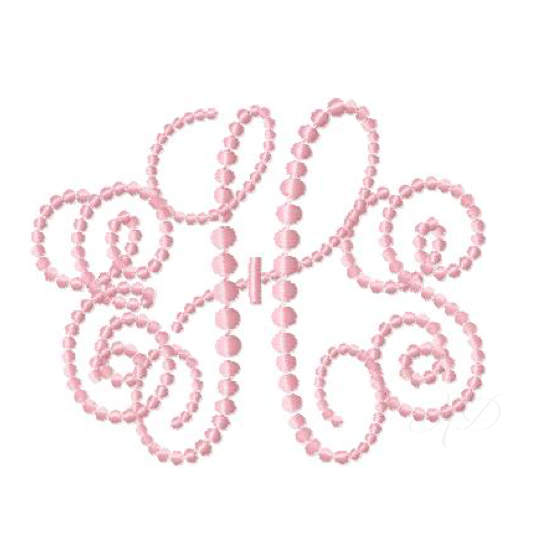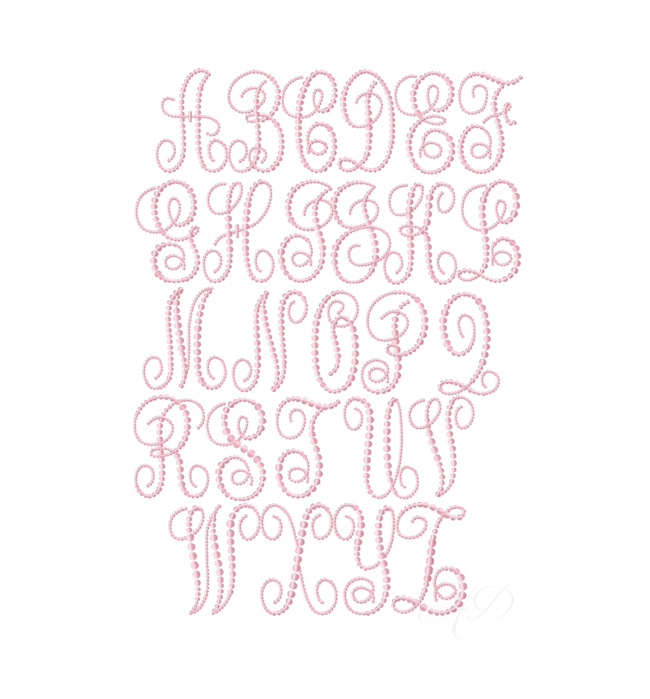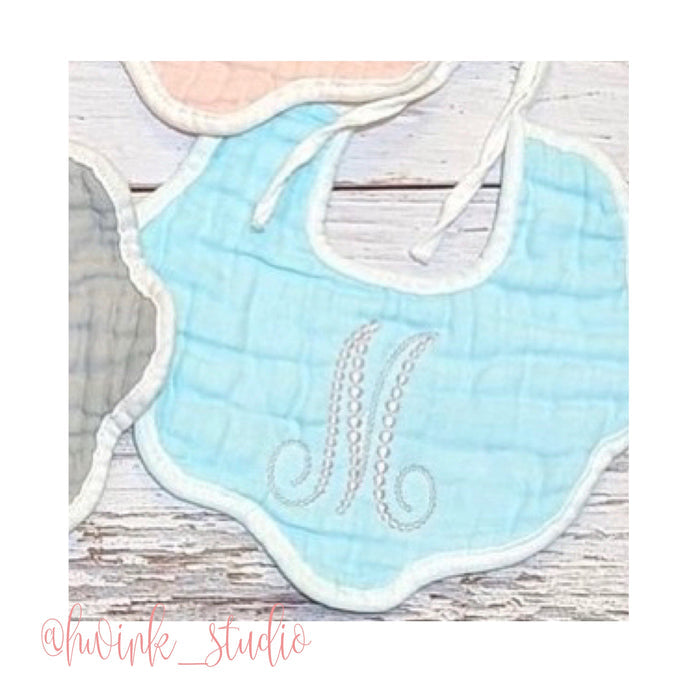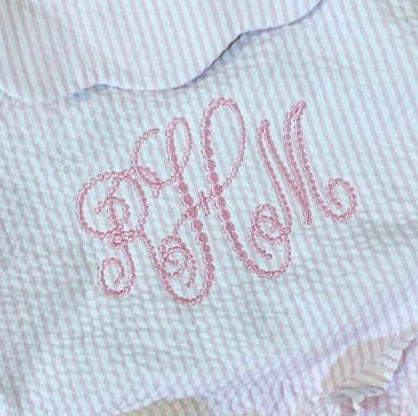
Classic Dot Monogram Embroidery Font Package
Elevate your DIY projects with our Classic Dot Monogram Embroidery Font Package. Designed specifically for crafters, this versatile package offers different sizes suitable for hoop dimensions of 4x4, 5x7, and 6x10, making it perfect for various embroidery projects.
The unique design features graduating sized dots, with the middle letters adorned with larger dots for a striking contrast to the smaller side letters. Available sizes include: